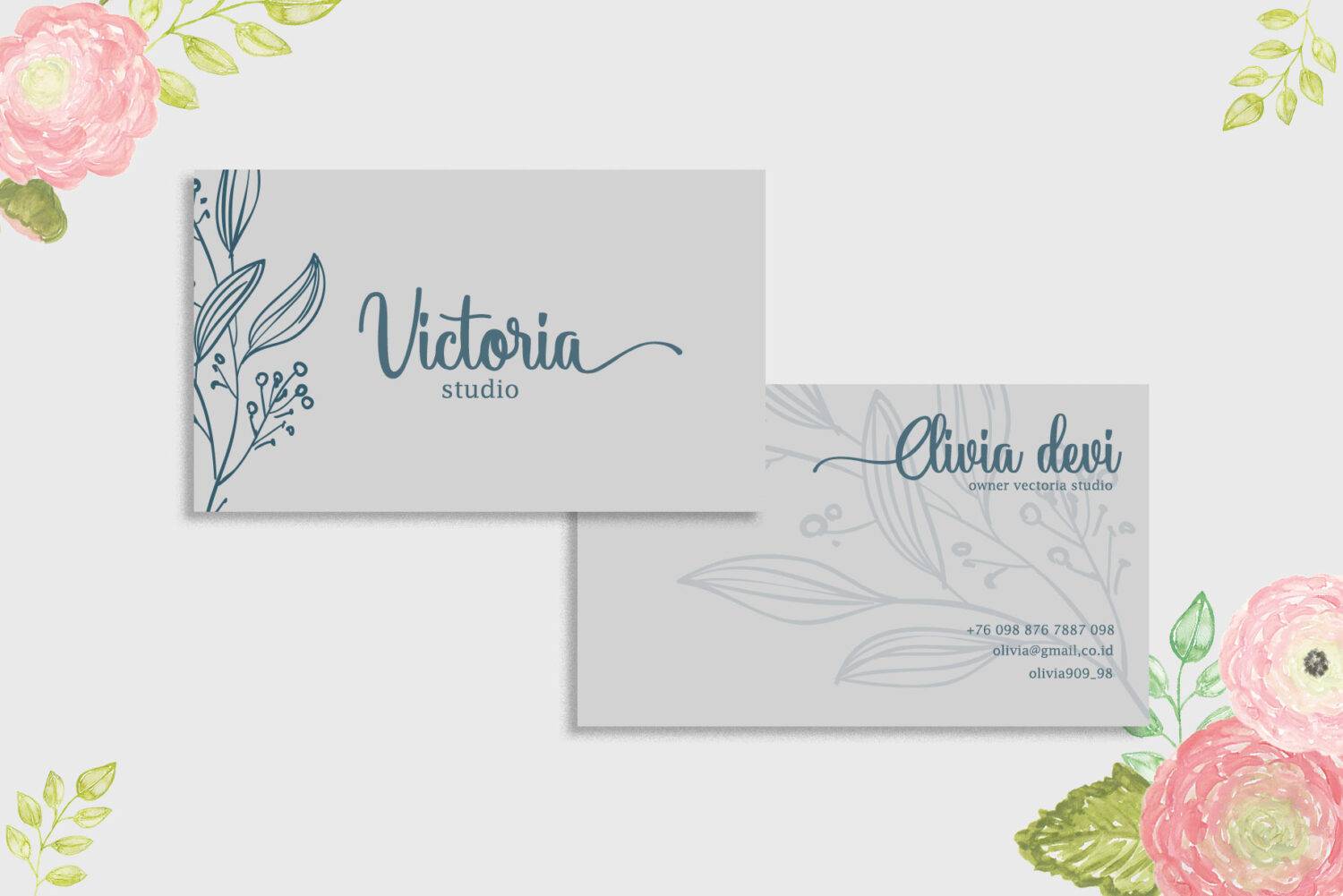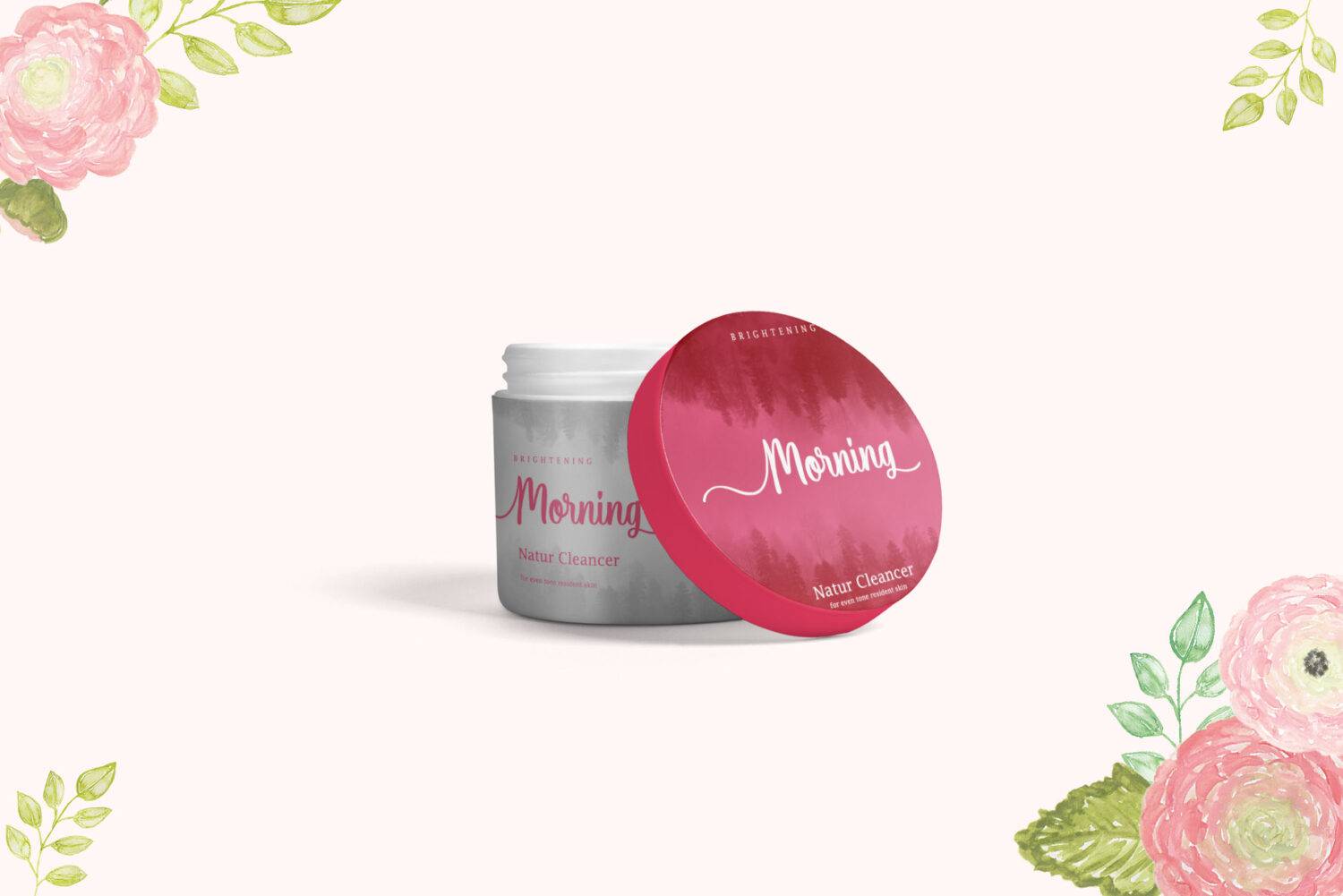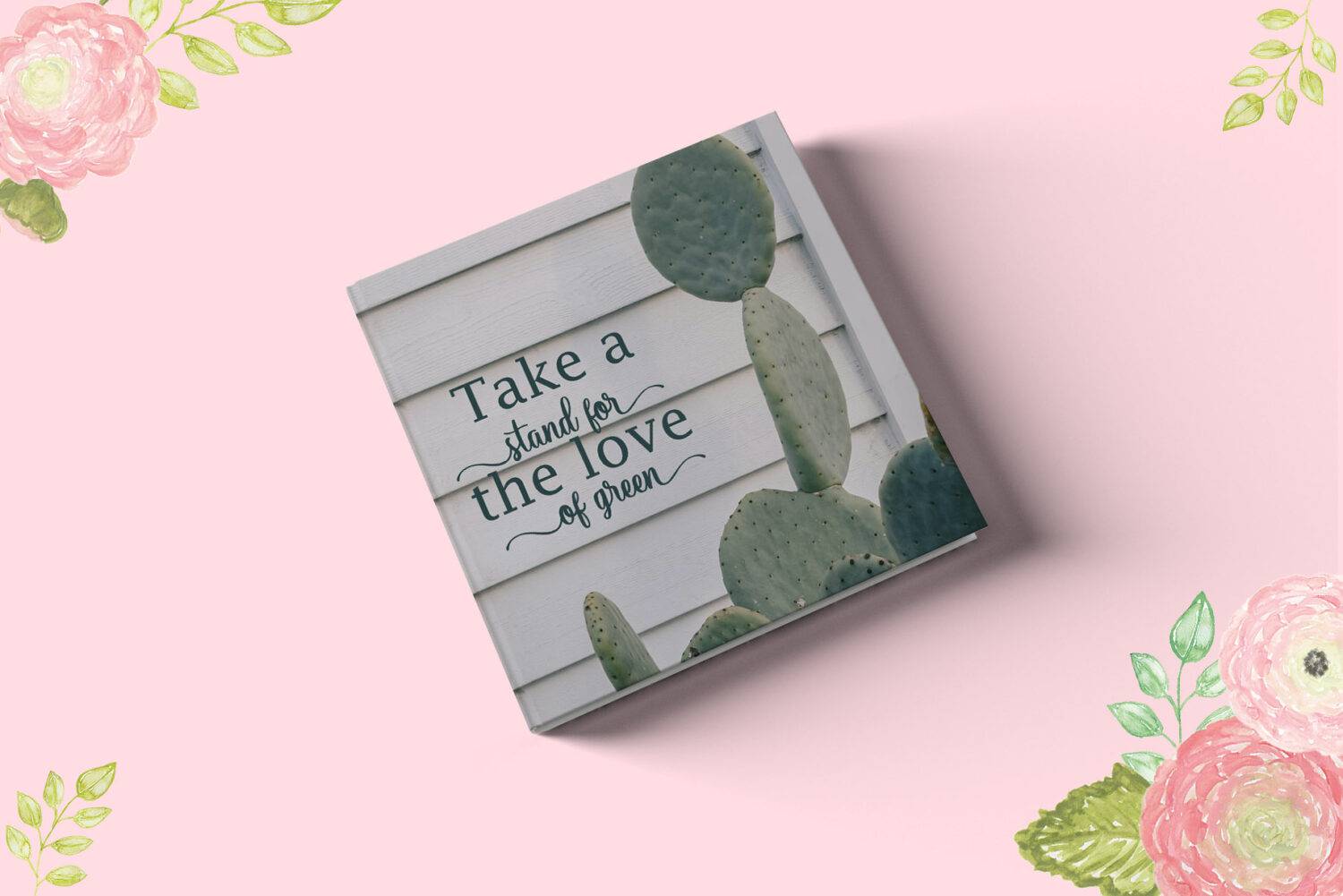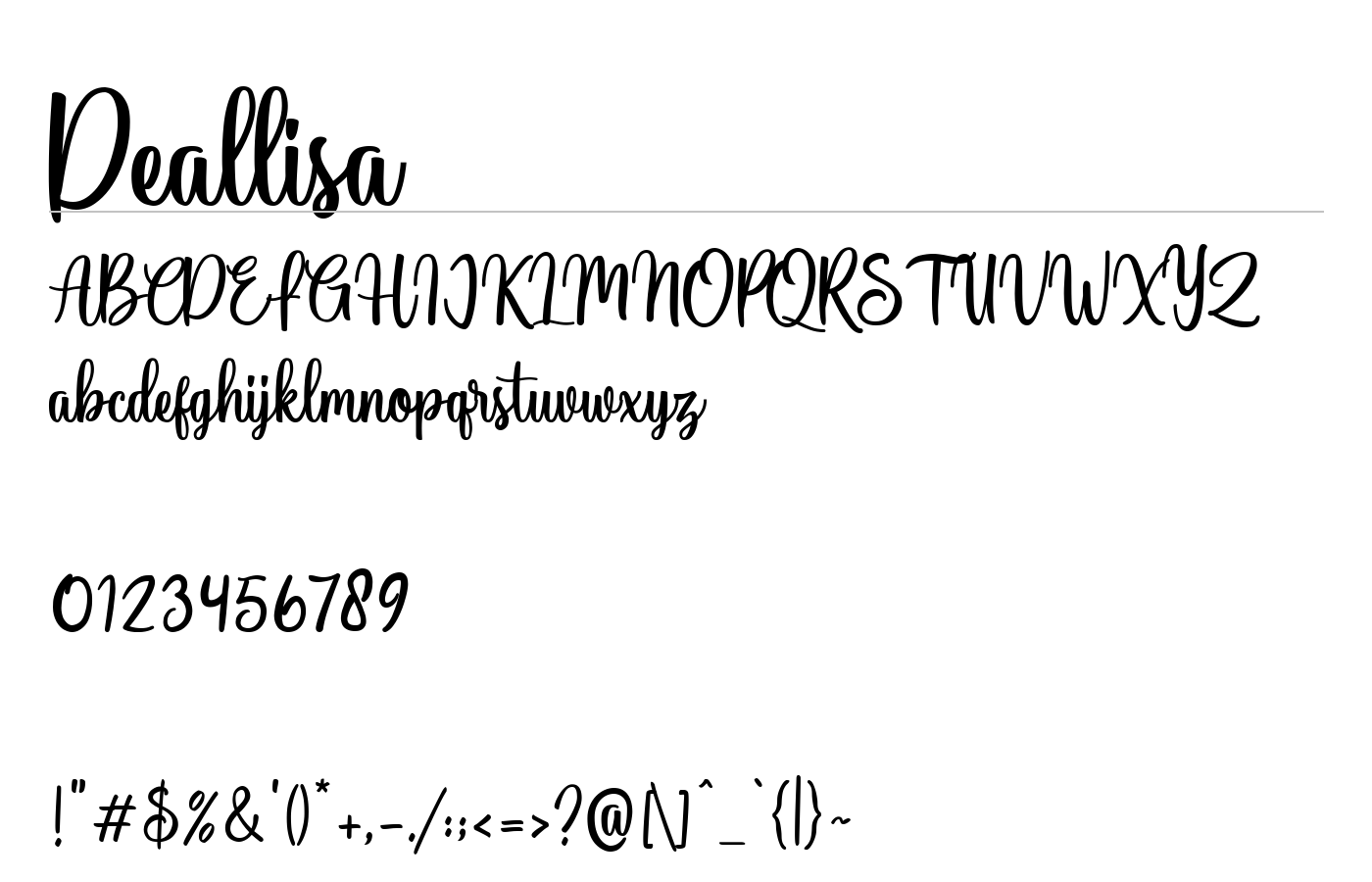
Deallisa is a lively, script-style font with a friendly and casual feel, featuring smooth, flowing strokes and a consistent weight that gives it a clean yet personal touch. Its tall x-height and rounded letterforms make it highly legible, ideal for adding a charming and approachable vibe to invitations, branding, and creative designs. Perfect for projects seeking a warm, handwritten look without sacrificing clarity or style.
Deallisa Font
About Deallisa Font
| Font family | Deallisa Font |